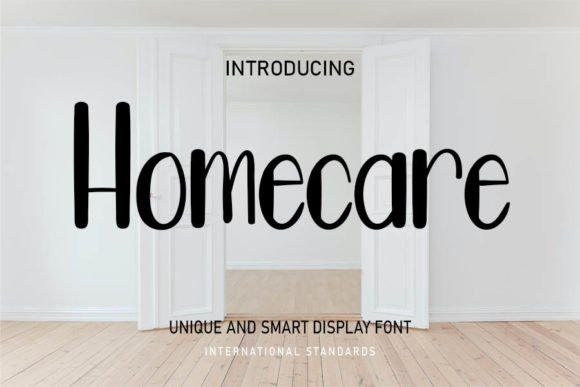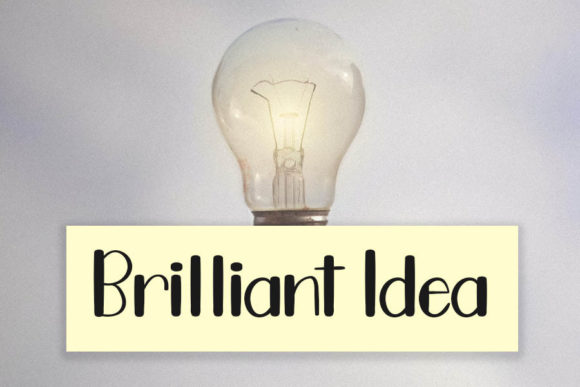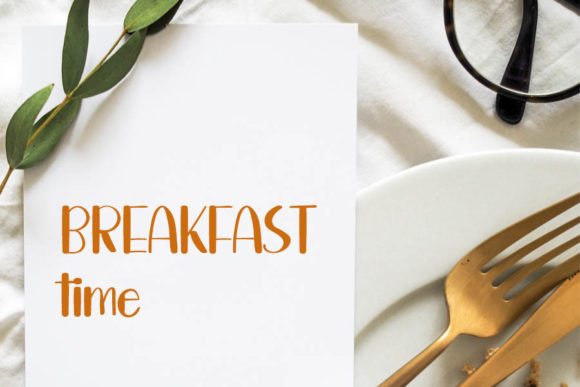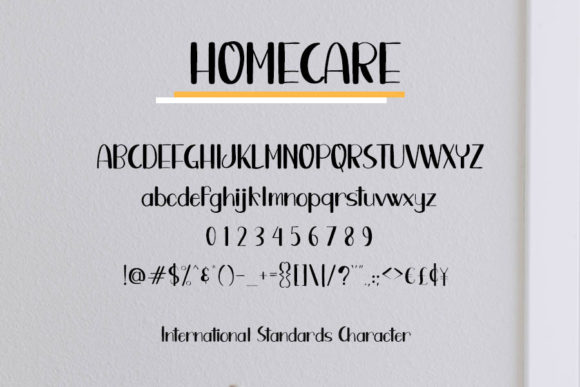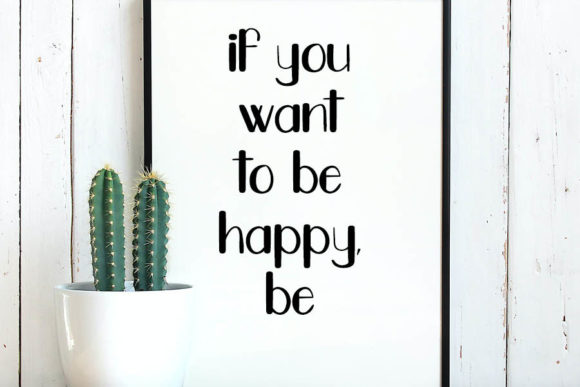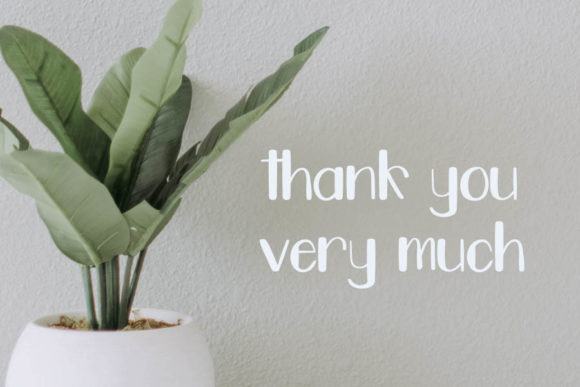
Unleash the Joy of Design with Homecare Font
Remember that moment when you stumbled upon the perfect font for a project, and everything just clicked? It’s that feeling of excitement and relief that designers live for. For me, it was when I discovered the Homecare Font – a simple and clean handwritten font that instantly brightened up my designs.
Homecare Font is more than just a font; it’s a tool that brings joy and personality to your creations. Whether you’re crafting logos, wedding invitations, or t-shirts, this font is perfect for adding a touch of warmth and friendliness to your work. As a designer, you’ll appreciate the versatility of Homecare Font, which makes it a valuable addition to your toolkit.
Homecare Font Key Features
- Font Family: Homecare Font is a unique, hand-crafted font designed specifically for medical and healthcare-related applications.
- Unique Characteristics: The Homecare Font features a clean, modern design with a subtle medical theme, making it an ideal choice for healthcare-related branding and marketing materials.
- Language Support: Homecare Font supports a wide range of languages, including Latin, Cyrillic, and Greek alphabets, making it a versatile choice for global healthcare applications.
Designer Review: Homecare Font
As a designer, I’ve had the chance to work with a wide range of fonts, but Homecare Font has left me with mixed feelings. Let’s dive into what works and what doesn’t.
- Modern and Minimalistic Design: Homecare Font has a clean and sleek aesthetic that makes it perfect for modern designs.
- High Legibility: The font is highly legible, making it great for body text and headings.
- Customization Options: Homecare Font offers various font weights, which makes it versatile for different design needs.
- Limited Character Set: Homecare Font lacks a comprehensive character set, which can be limiting for international designs.
- No Italic or Bold Variations: While the font weights are customizable, there’s no italic or bold variation, which can be a drawback for certain designs.
- Not Ideal for Historical or Formal Designs: Homecare Font’s modern design may not be suitable for historical or formal designs that require a more traditional or elegant font.
While Homecare Font has its strengths, its limitations hold it back from being a top-tier font. It’s a great option for modern and minimalist designs, but it may not be the best choice for more traditional or formal designs. Overall, I’d give it 3.5 out of 5 stars.
Homecare Font is ideal for healthcare-related projects, such as:
- Medical brochures and flyers.
- Healthcare websites and landing pages.
- Medical presentations and reports.
Alternatives to Homecare Font
Lato is a popular sans-serif font that is highly legible and versatile. It is suitable for a wide range of applications, including body text, headings, and titles. Lato is often used in modern designs and has a clean, minimalistic aesthetic.
Compared to Homecare Font, Lato has a more modern feel and is more suitable for digital applications. Homecare Font has a more traditional and classic feel, while Lato is more contemporary.
Open Sans is another popular sans-serif font that is highly legible and versatile. It is designed to be clear and readable at small font sizes, making it suitable for digital applications such as web and mobile design. Open Sans is also highly customizable and has a neutral aesthetic.